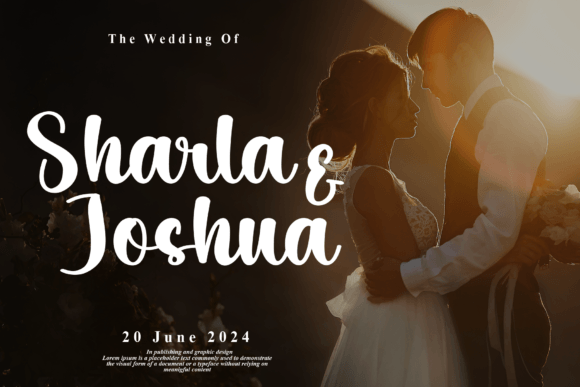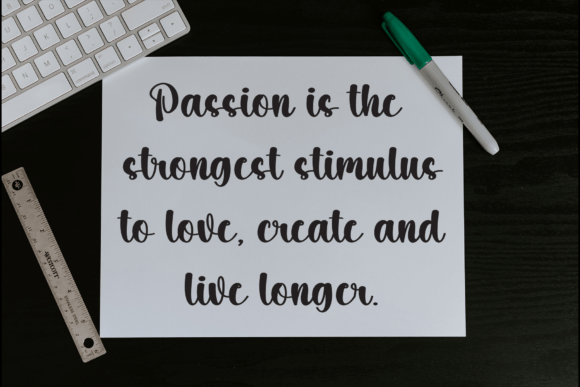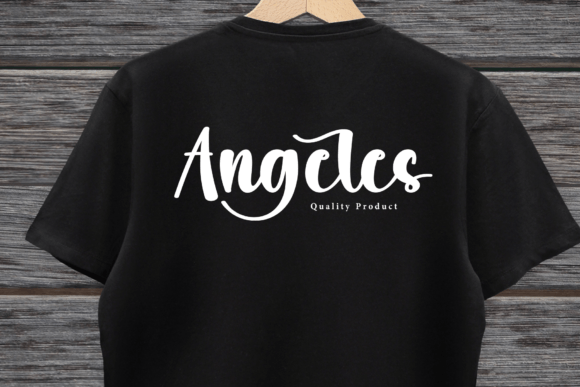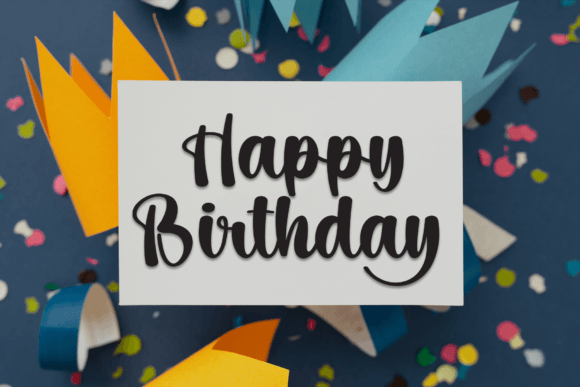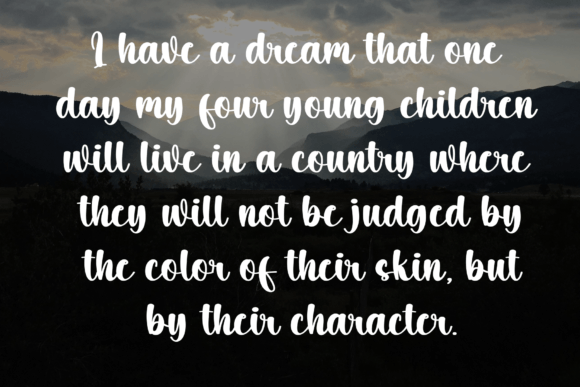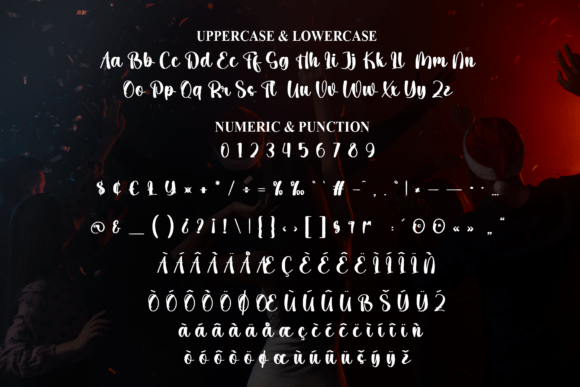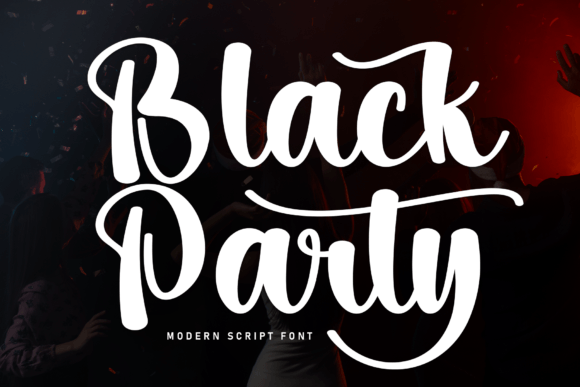
Unleash the Fun with Black Party Font: The Ultimate Choice for Bold Designs
Are you tired of using the same old fonts for your designs? Do you want to add a personal touch and make a strong statement? Look no further than the Black Party Font, a bold handwritten font that’s perfect for grabbing attention and adding a lively, energetic vibe to your creations.
What is Black Party Font?
Black Party is a bold handwritten font that’s designed to make a statement. Its thick, expressive letters are carefully crafted to convey a sense of energy and playfulness, making it perfect for designers and crafters who want to add a personal touch to their work.
Whether you’re working on a branding project, a party invitation, or a fun DIY craft, Black Party Font is the perfect choice. Its unique and eye-catching style is sure to grab attention and leave a lasting impression.
Key Features of Black Party Font
- Bold and Expressive Letters: Black Party Font features thick, expressive letters that are designed to make a strong statement.
- Lively and Energetic Style: The font’s lively and energetic style is perfect for adding a personal touch to your designs.
- Handwritten with a Personal Touch: Black Party Font is a handwritten font that’s designed to convey a sense of personality and whimsy.
- Perfect for Attention-Grabbing Designs: The font’s bold and eye-catching style makes it perfect for designs that need to grab attention.
Uses for Black Party Font
Black Party Font is a versatile font that can be used for a wide range of design projects, including:
- Branding and Logo Design: Use Black Party Font to create a bold and eye-catching logo that makes a statement.
- Party Invitations and Decor: Add a personal touch to your party invitations and decor with Black Party Font.
- DIY Crafts and Projects: Use Black Party Font to add a fun and playful touch to your DIY crafts and projects.
- Social Media Graphics: Use Black Party Font to create eye-catching social media graphics that grab attention.
Tips for Using Black Party Font
Here are some tips for getting the most out of Black Party Font:
- Use it as a Statement Font: Use Black Party Font as a statement font to grab attention and add a personal touch to your designs.
- Pair it with Other Fonts: Pair Black Party Font with other fonts to create a unique and eye-catching combination.
- Experiment with Colors and Textures: Experiment with different colors and textures to add depth and interest to your designs.
Black Party Font is a bold and expressive font that’s perfect for designers and crafters who want to add a personal touch to their work. Its lively and energetic style makes it perfect for attention-grabbing designs, and its versatility makes it suitable for a wide range of projects.